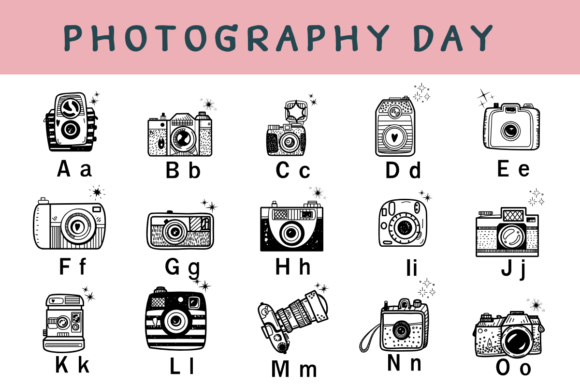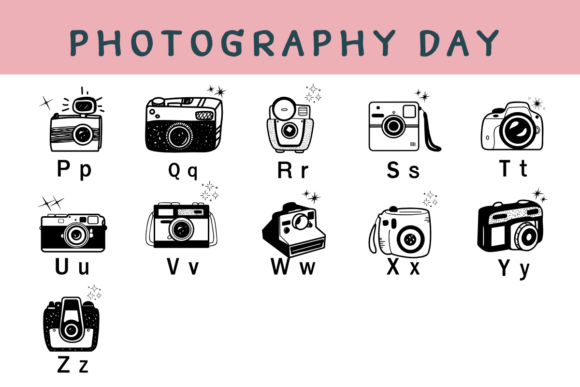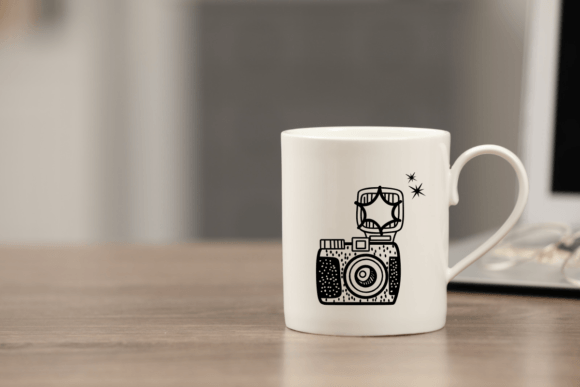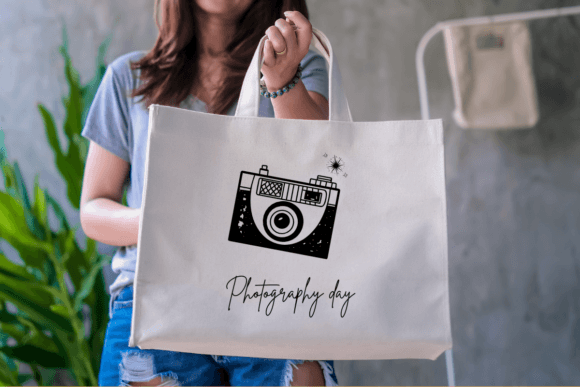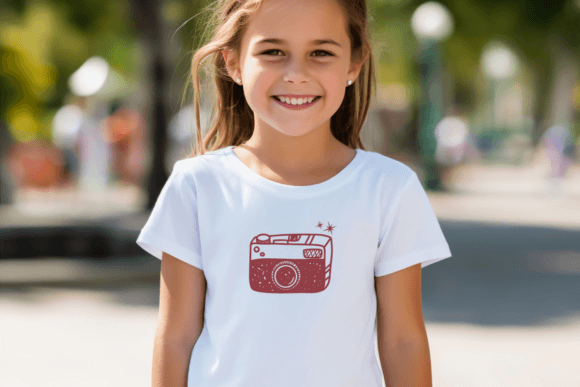
Introduction to Photography Day Font
Photography Day is a dingbat font with a photography-related theme with a sketch style.
This font can enhance your creative projects such as wedding invitations, DIY, crafts, decorations, logos, and many other creative ideas .
Key Features of Photography Day Font